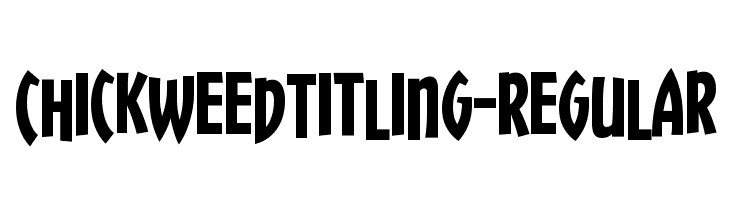
( Bayu Prahara )
A sophisticated script font with elegant curves and modern flair.
An elegant, flowing script font with decorative flourishes.
A playful, hand-drawn font with bold, rounded characters.
A playful, handwritten font with smooth, rounded edges and a casual style.
( PunkWinter )
An elegant, modern font with medium contrast and dynamic curves.
A modern, geometric sans-serif font with clean lines and rounded edges.
A bold, geometric font with sharp angles and smooth curves for a modern look.
设计师偏爱 Tegak Bersambung_IWK, Uneek, history of alabama, Original Olinda Style and Bluebird SFBold Narrow Oblique,因为其造型干净、适用范围广—— 从品牌识别到落地页、海报都能胜任。